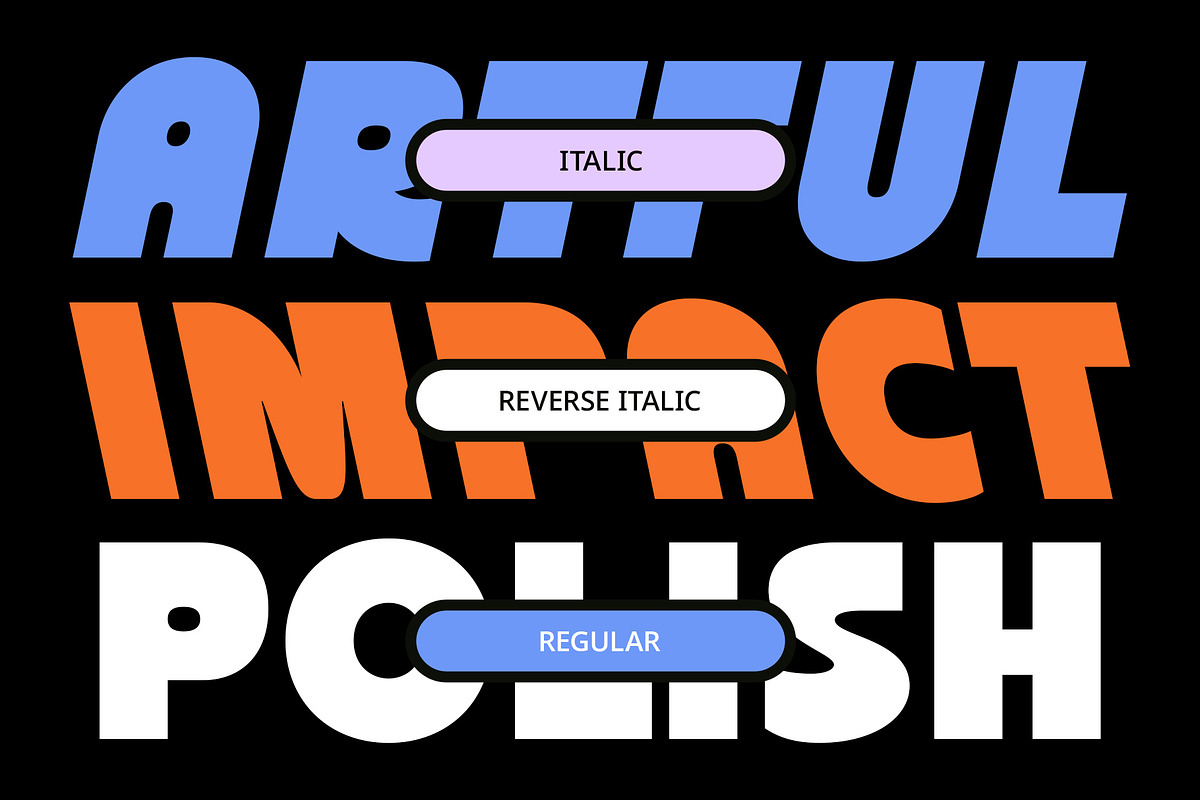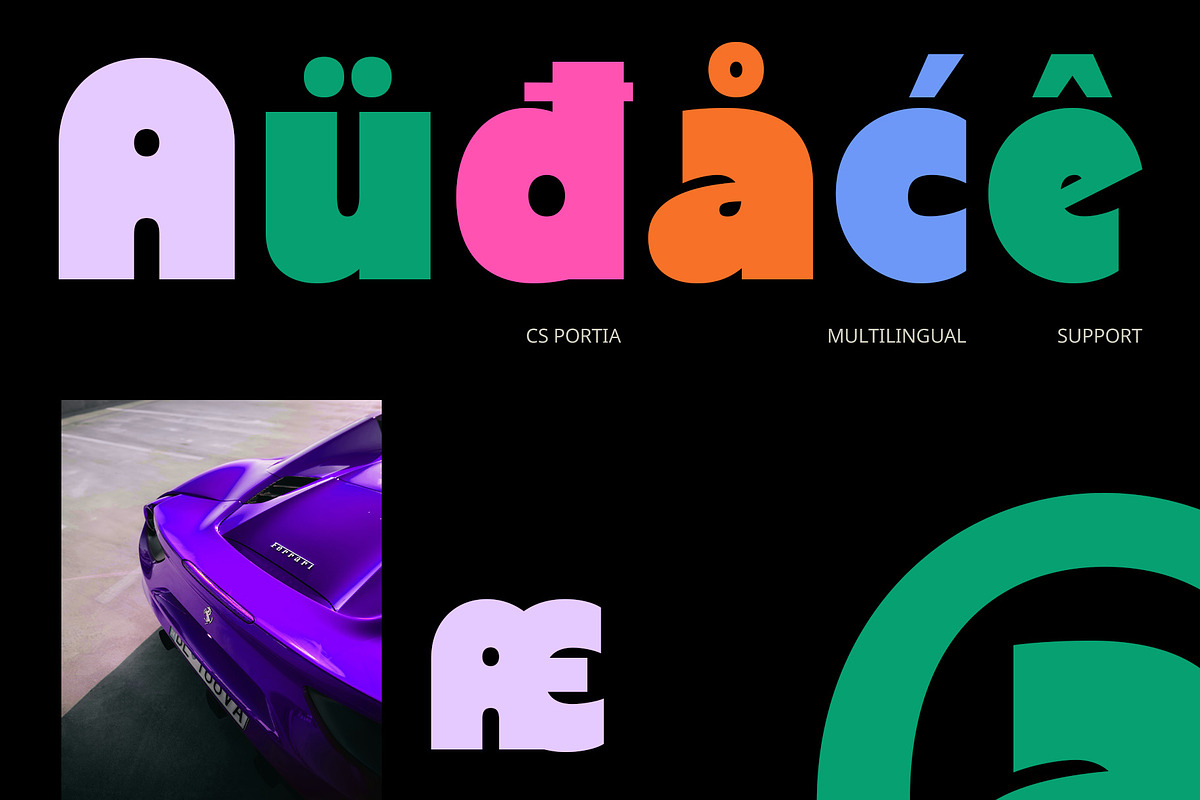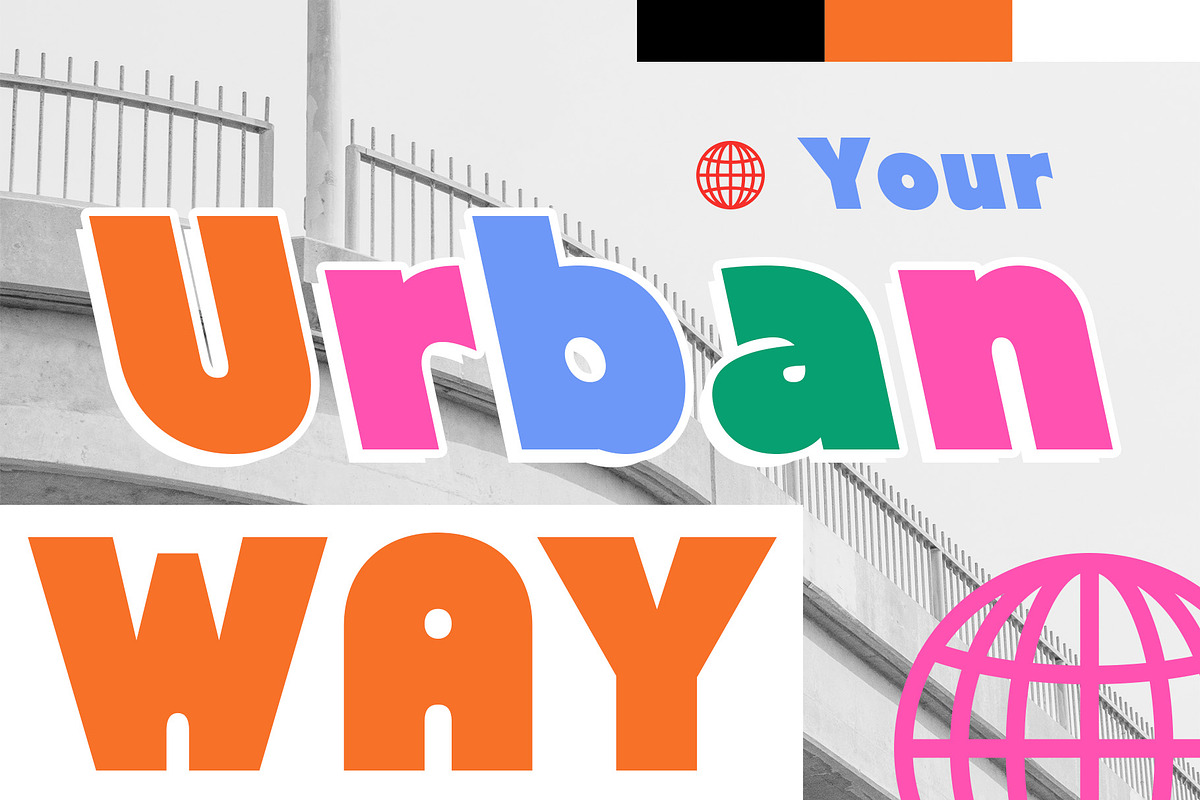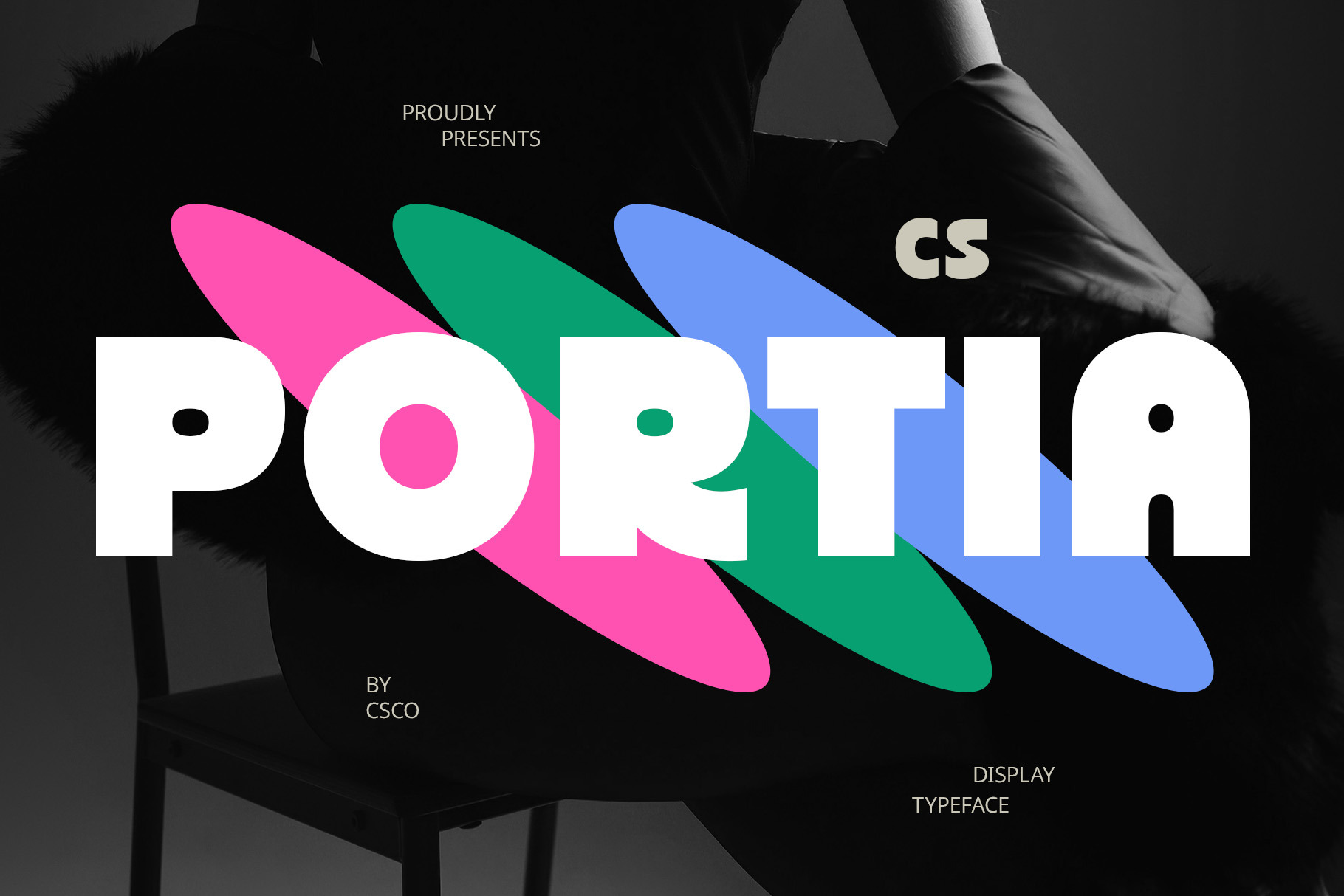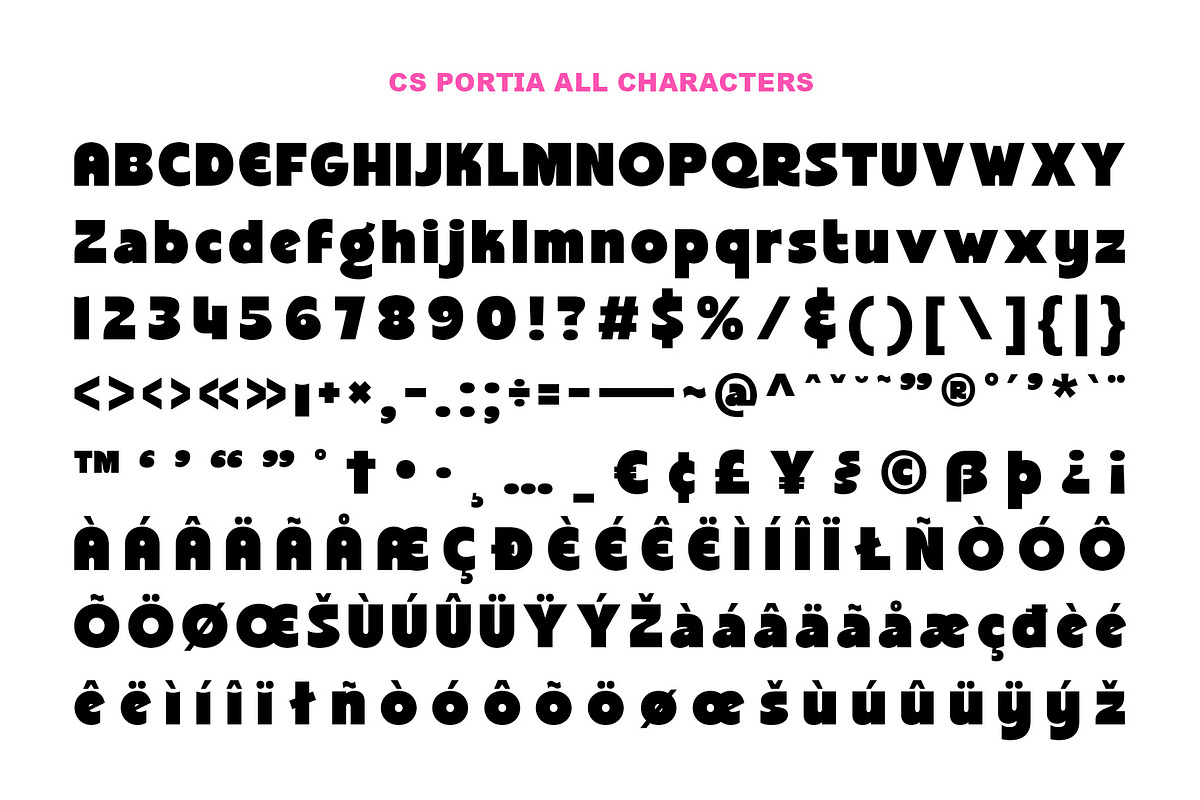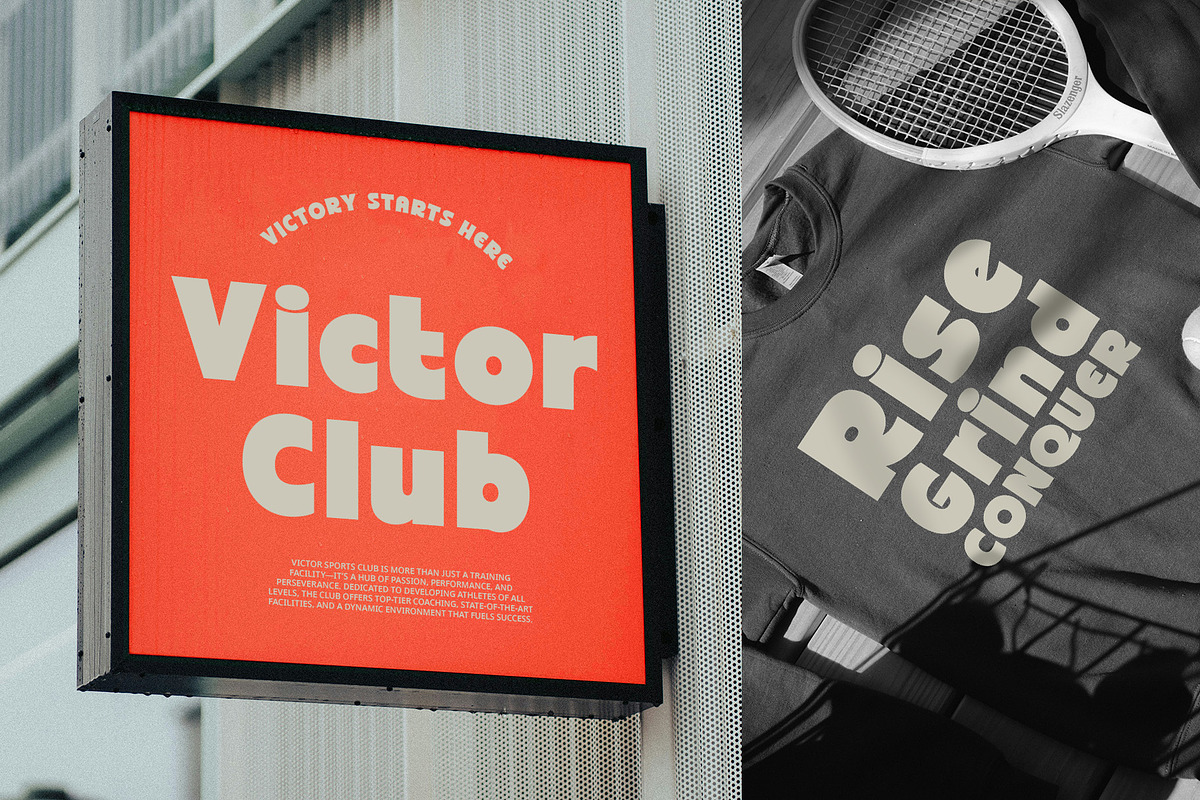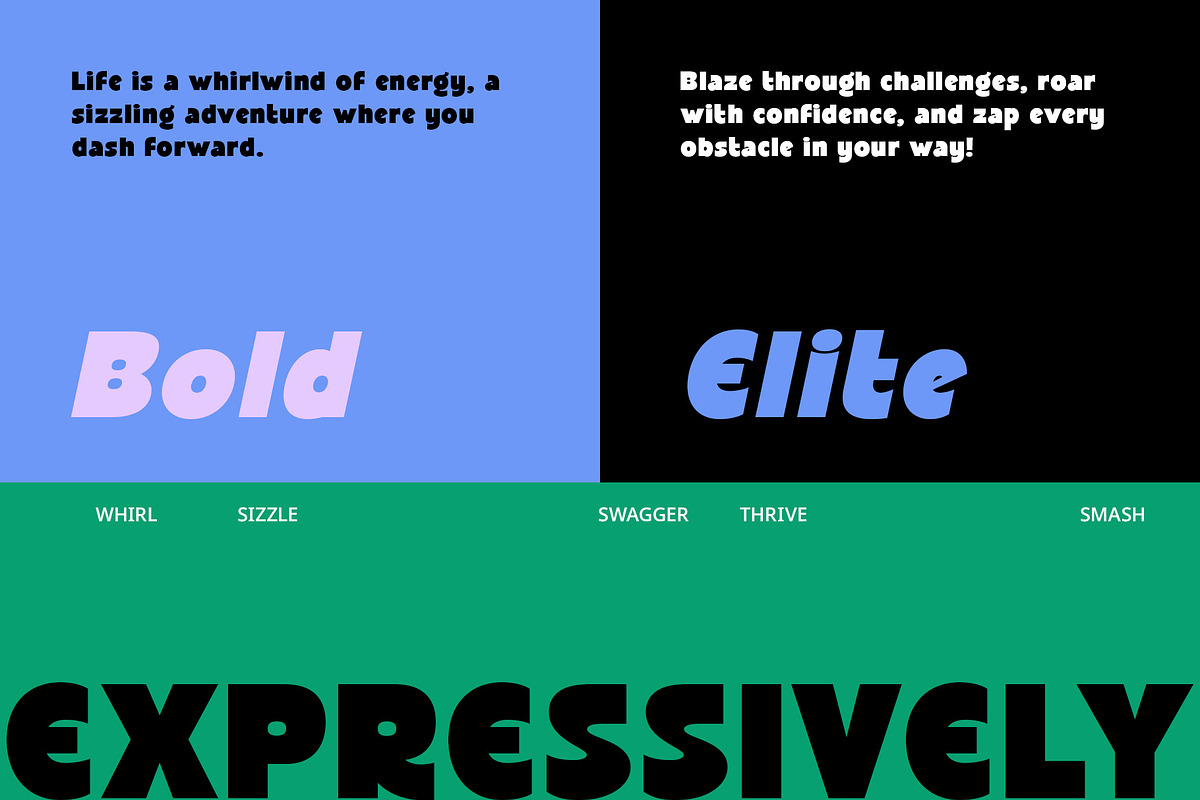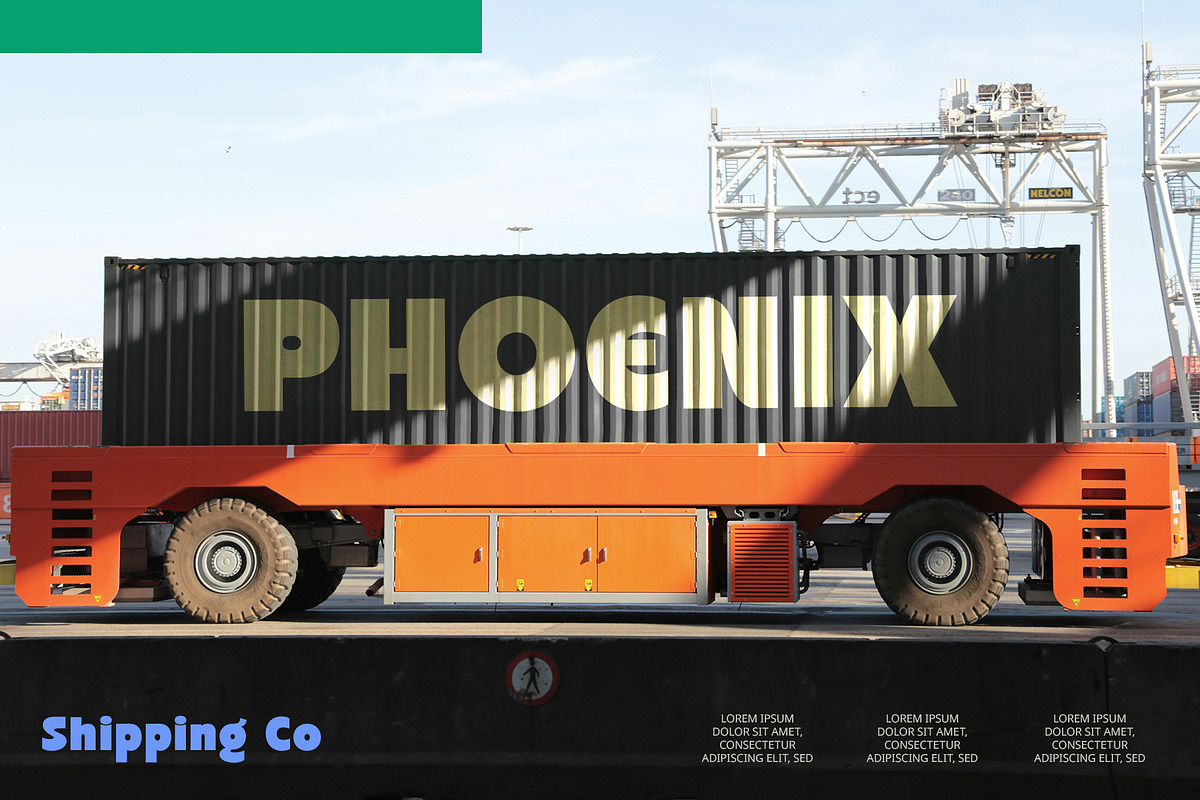
CS Portia – Bold Font
CS Portia – Bold Font: Playful, Modern, and Full of Energy
A Bold Sans Serif with a Cheerful Personality CS Portia is a bold sans-serif font designed to bring a sense of fun, energy, and excitement to any project. With its thick, eye-catching letterforms and lively structure, this font is perfect for modern designs that aim to be bold, expressive, and full of character.
Smooth Curves and Unique Proportions for a Dynamic Look Featuring rounded shapes, slightly unconventional proportions, and balanced contrast, CS Portia stands out with its dynamic and engaging appearance. The font’s playful structure adds a modern yet friendly touch, making it an excellent choice for projects that need to feel welcoming, youthful, and full of personality.
Versatile for Various Design Applications CS Portia is highly versatile and works beautifully across different mediums, from posters and packaging to social media graphics and advertising. Its bold and legible design makes it suitable for headlines, logos, merchandise, and entertainment-related visuals, ensuring an impactful and memorable presence.
Perfect for Bright and Vibrant Designs Designed to complement colorful and energetic visuals, CS Portia pairs well with vibrant color palettes, adding an extra layer of excitement to any design. Its bold yet playful aesthetic makes it a great choice for projects targeting a youthful audience or brands looking to create a strong and inviting identity.